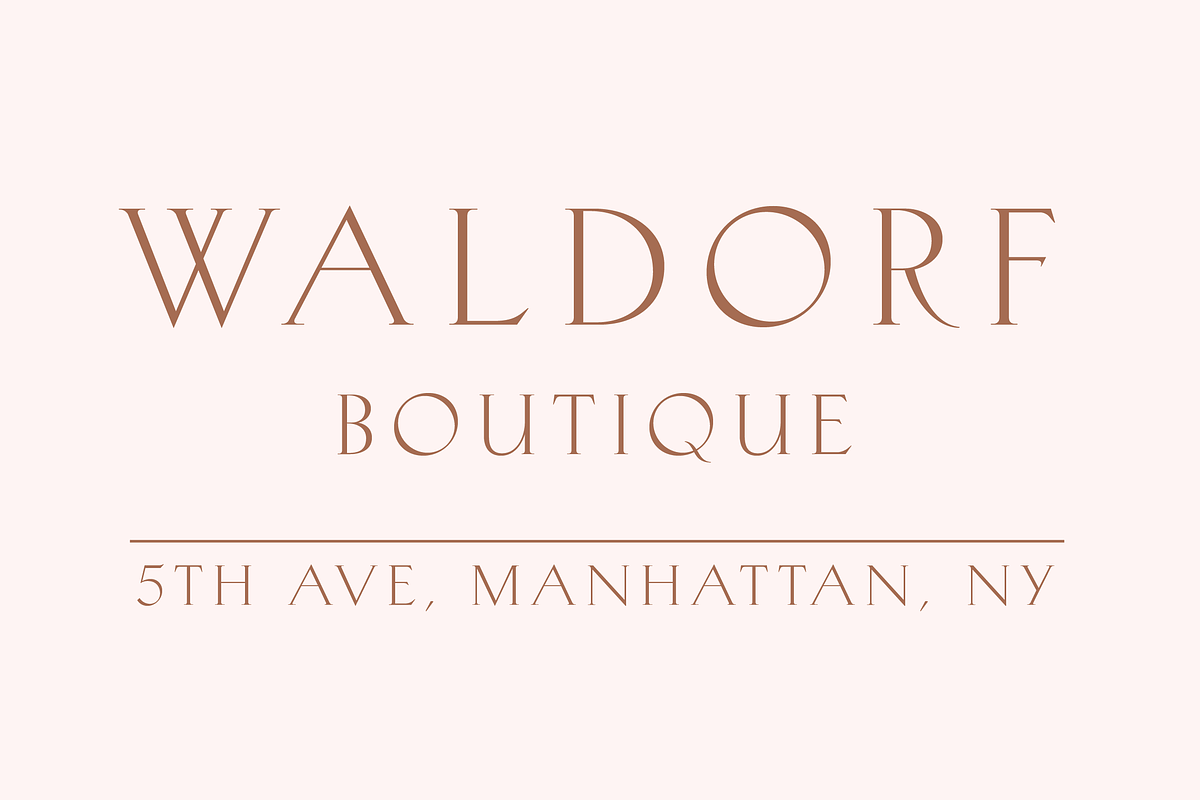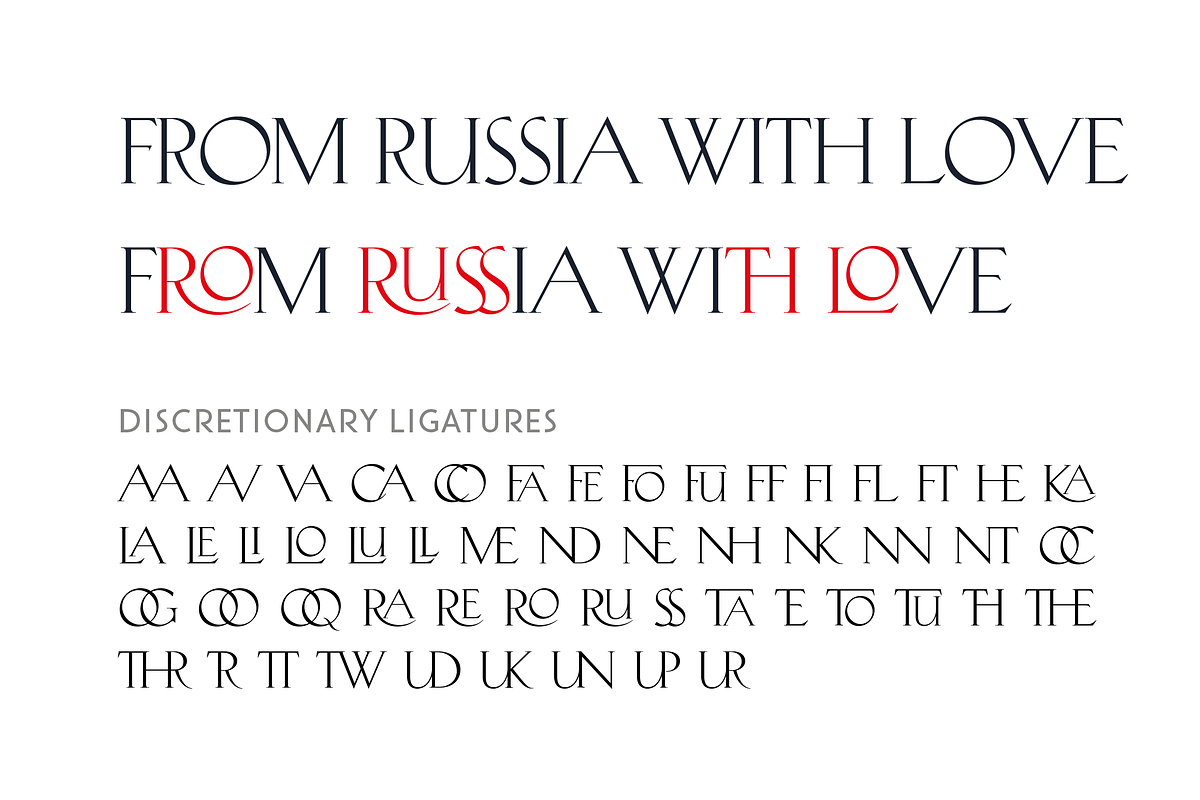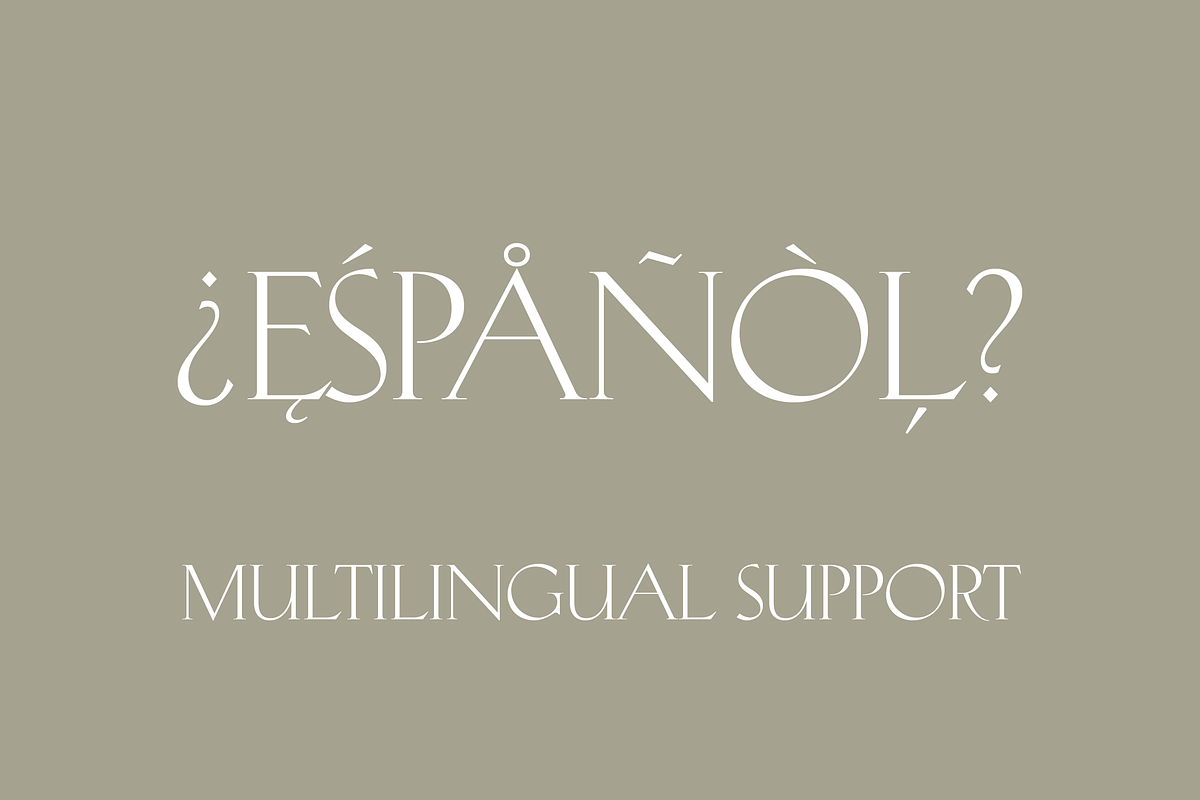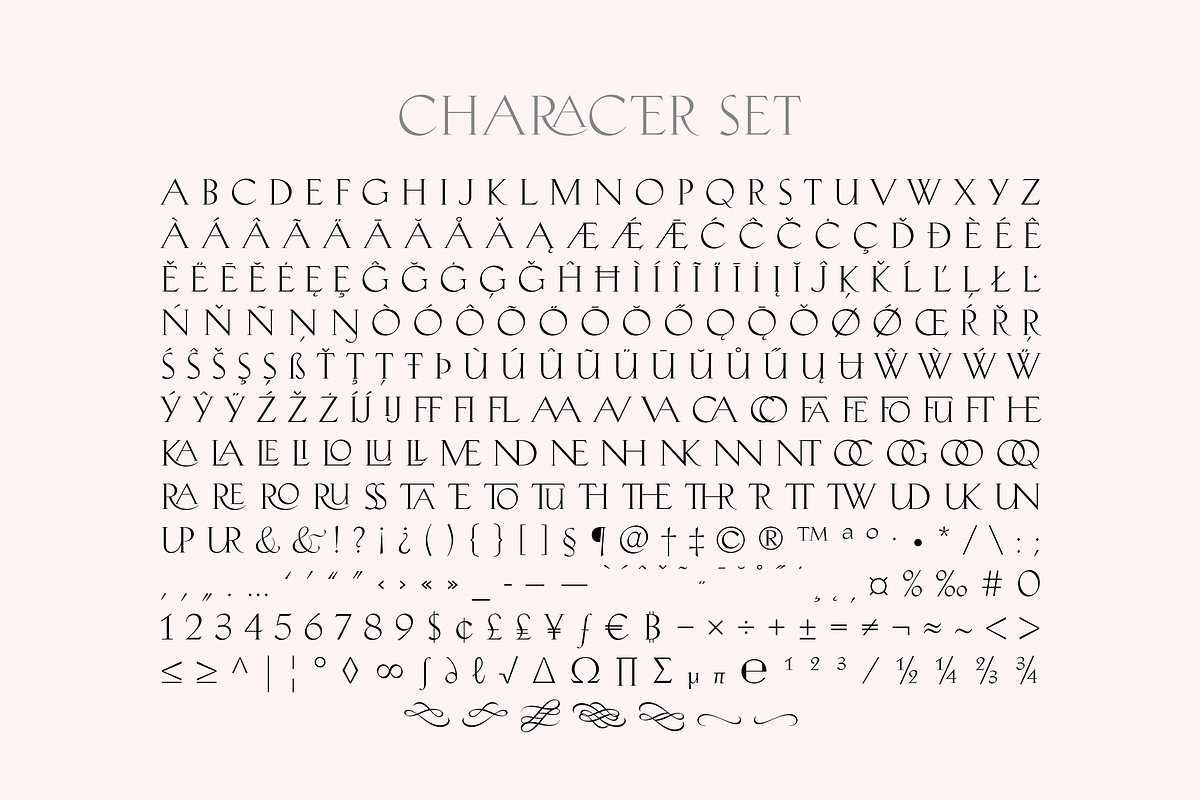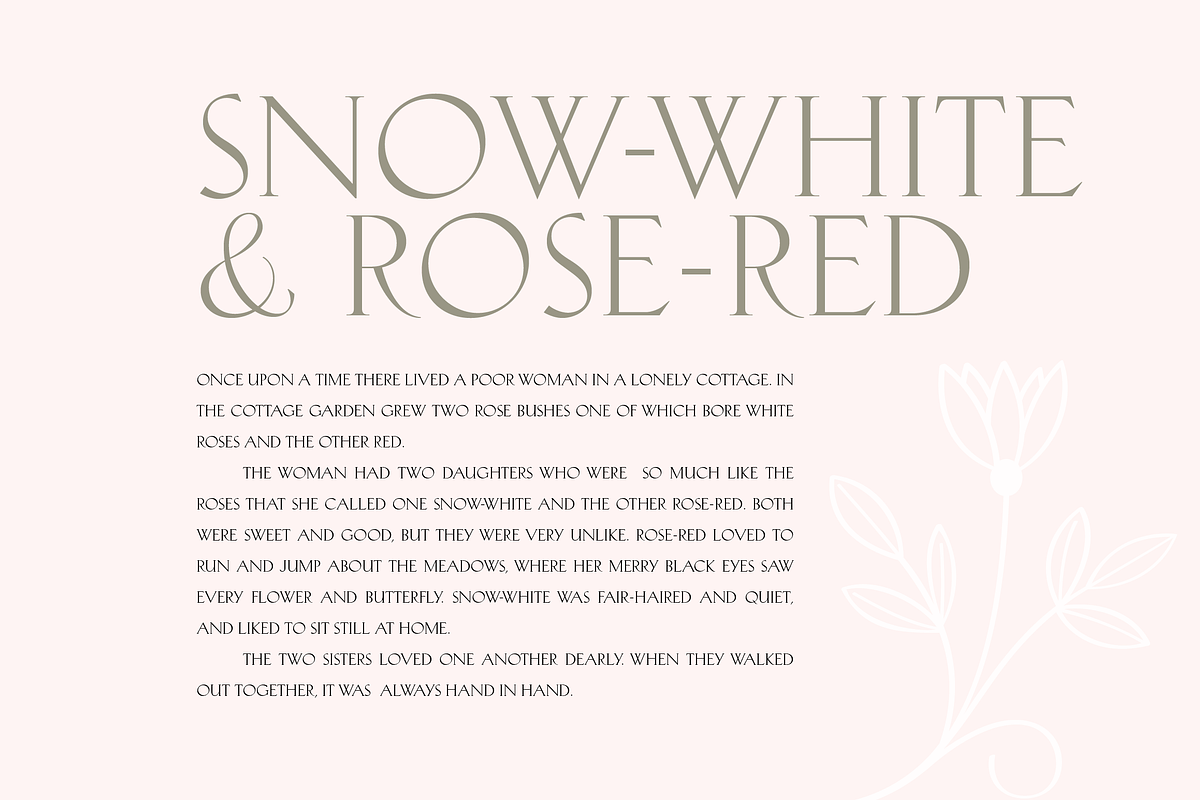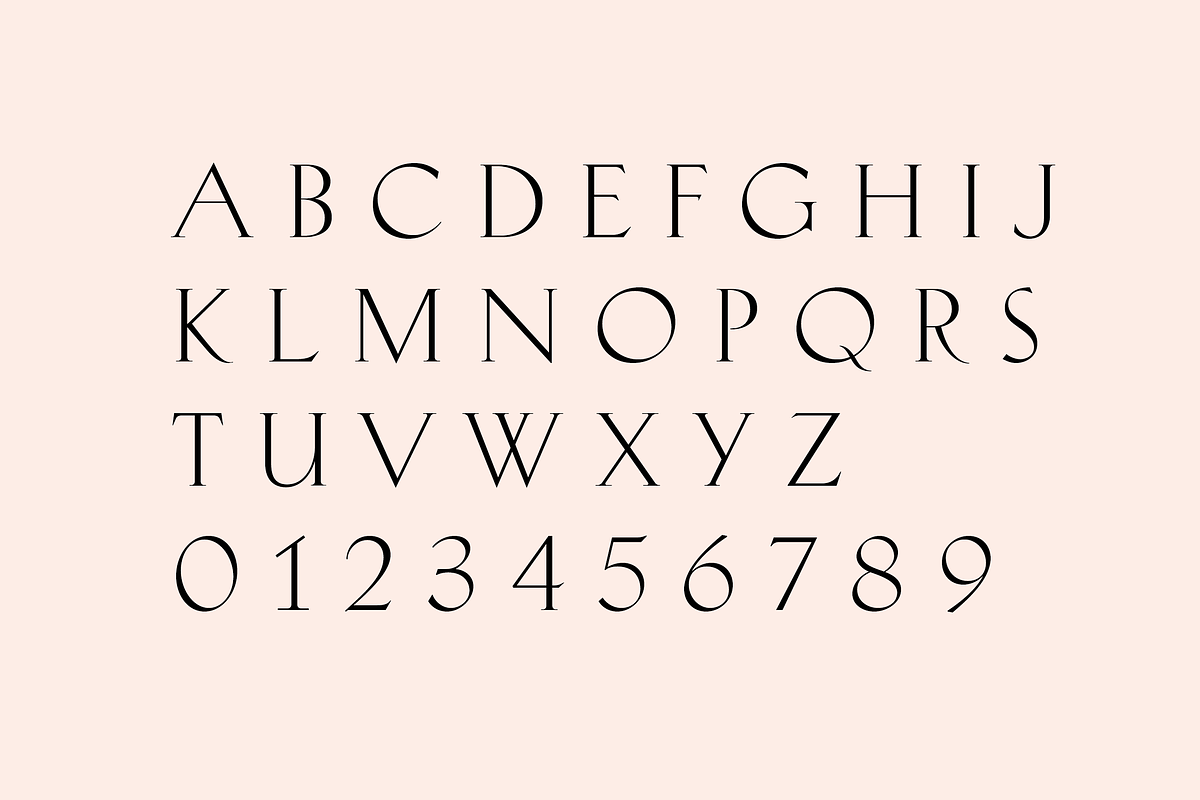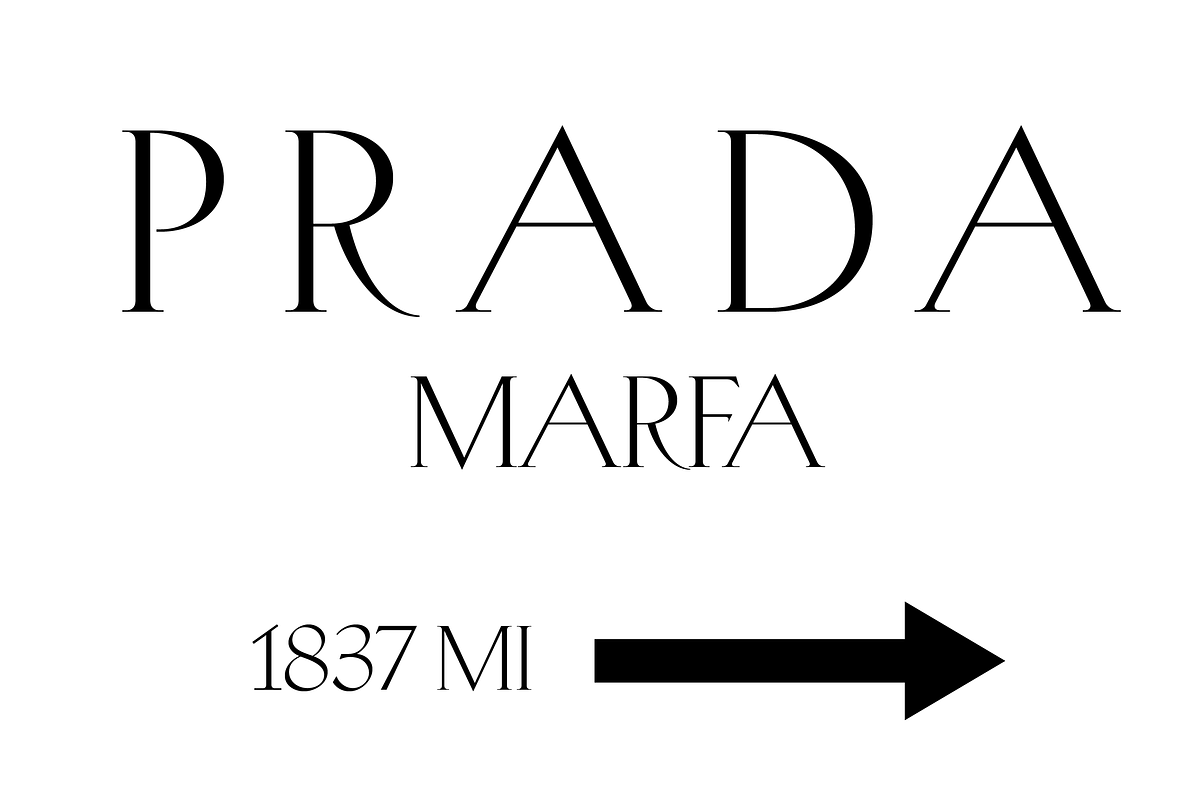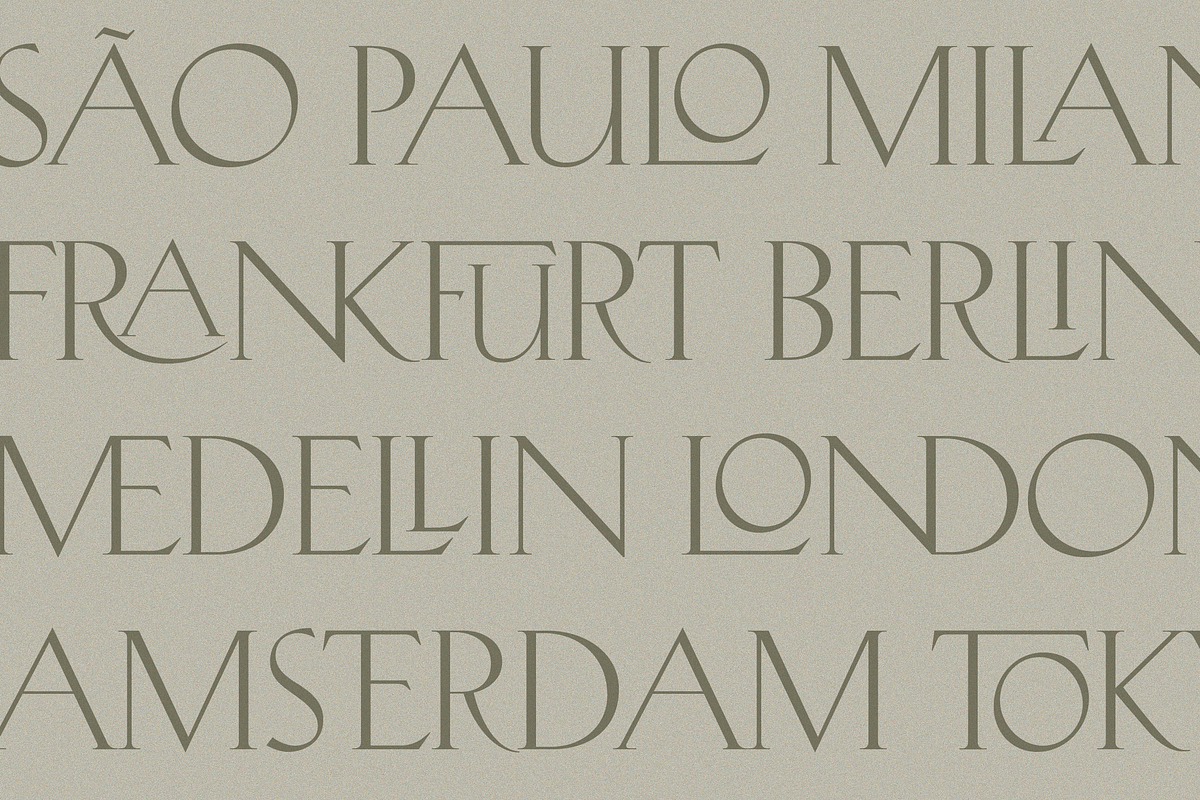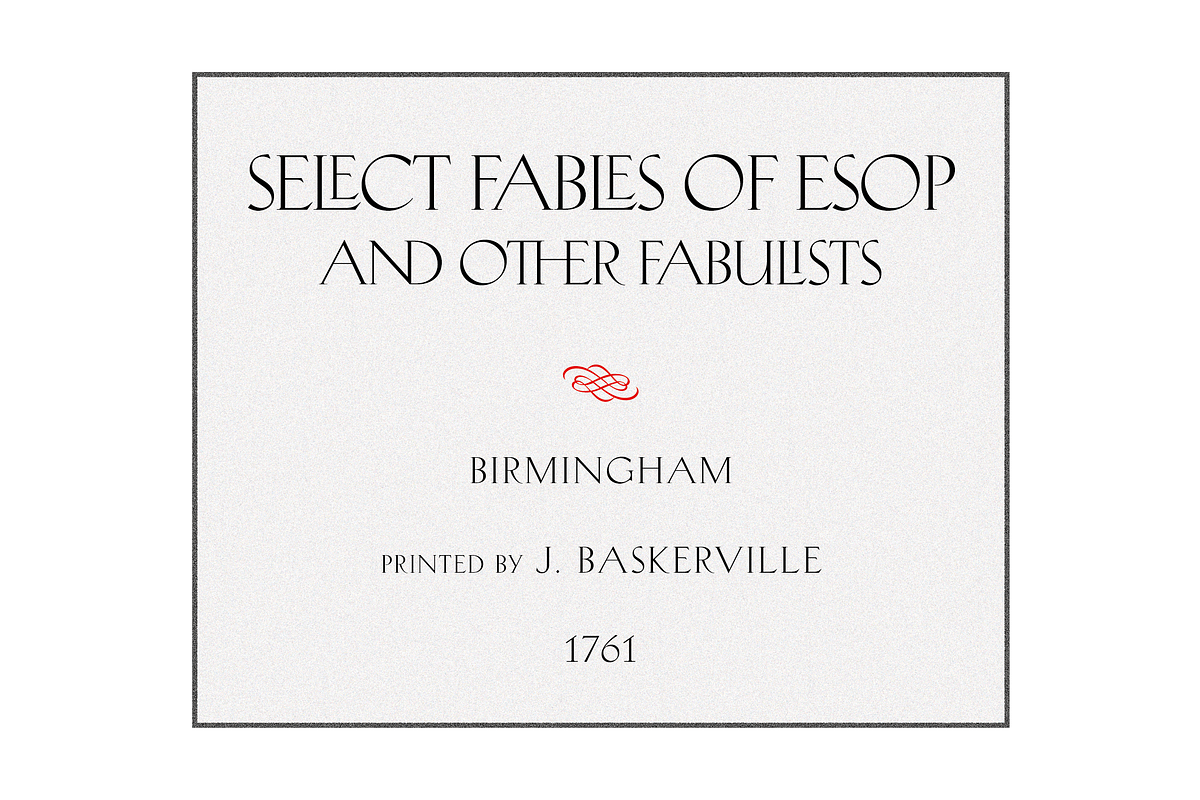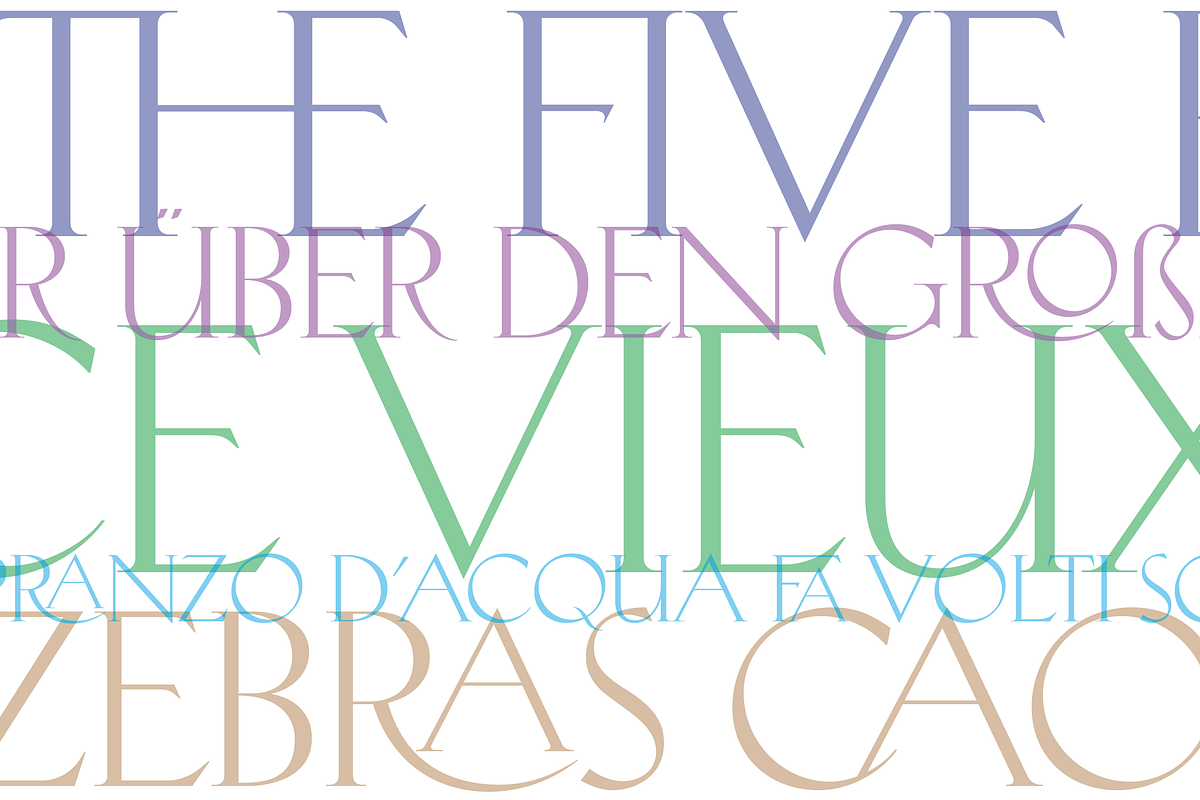
Giovanna - Luxury Serif
Giovanna is a classic and elegant all caps serif font. This majestic typeface convey a feeling of refinement in traditional as well as contemporary designs. It includes a large set of ligatures that are perfect for creating unique titles and logos with a luxurious and stylish look.
Designed for display typesetting at large sizes. It's best for headlines, titles, posters, magazines headings, logo, advertising, invitations, monograms, and wherever your creativity wants to be.
- All Uppercase
- Numbers, Punctuation & Symbol
- +50 Discretionary Ligatures
- Multi Language - Giovanna comes packed with full multilingual support, ensuring that your typography remains impeccable across diverse languages and regions.
- +400 Glyphs